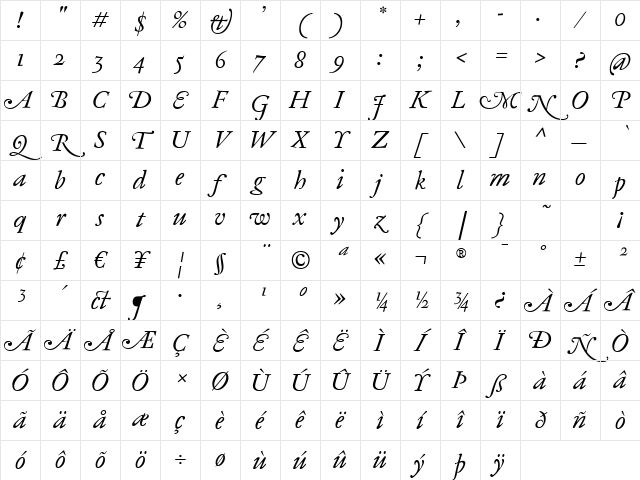
AntiqueAncienne Regular
Design Context for AntiqueAncienne
AntiqueAncienne wears its vintage influences proudly, with letterforms that recall mid-century signage, classic packaging, and nostalgia-driven design.
Font Pairing: Combine AntiqueAncienne with a simple slab or neutral sans - period-accurate companions reinforce the vintage feel without competing for attention.
Pro Tip: Lean into AntiqueAncienne's period character by pairing it with aged paper textures, muted colour palettes, and vintage illustration styles.